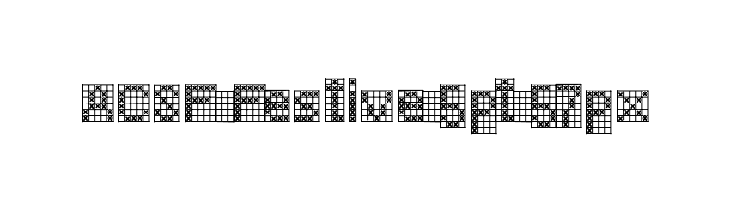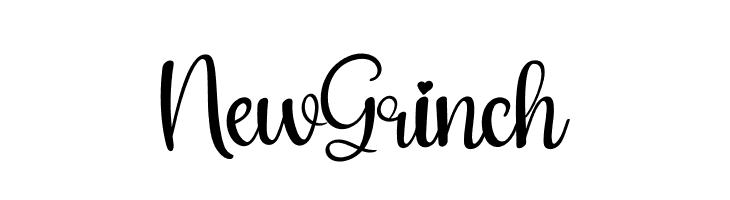
( Fonts by P. Baudin )
A decorative, grid-patterned font with a festive and playful style.
( Fonts by share font )
An ornate, decorative font with characters enclosed in floral wreaths, ideal for elegant monograms.
( Fonts by Mariyana )
Ornate, decorative monogram font with elegant flourishes.
( Fonts by Letterday Studio )
An ornate, decorative font with intricate swirls and flourishes, perfect for elegant designs.
( Fonts by Go Letter )
An ornate and decorative font with intricate swirls and circular frames around each letter.
( Fonts by Yan Amorim )
A bold, graffiti-inspired font with a hand-painted, dynamic style.
( Fonts by Hawtpixel )
A bold, playful font with a spooky, Halloween-inspired design.
( Fonts by Andi Moz )
A playful, handwritten font with dynamic flourishes and a whimsical style.
( Fonts by PutraCetol Studio )
A bold, decorative font with a snowflake pattern, perfect for festive themes.
( Fonts by Qwrtype Foundry )
An elegant, flowing script font perfect for sophisticated designs.